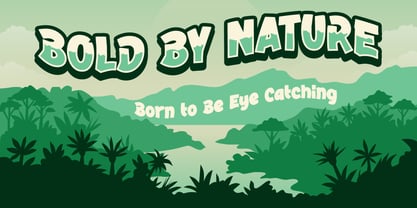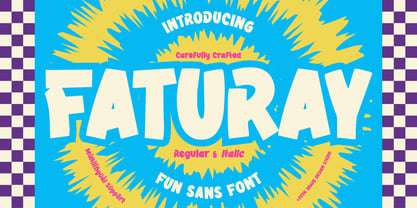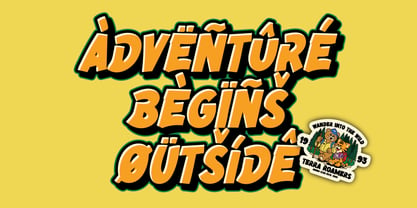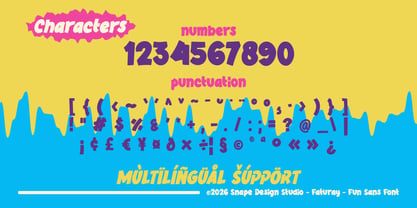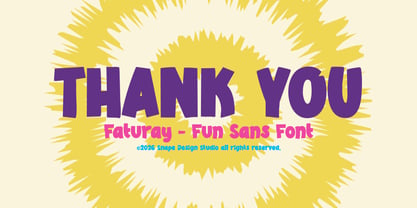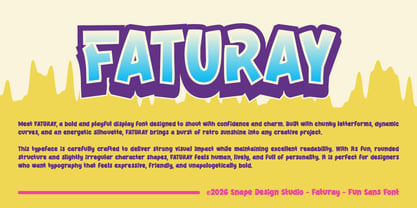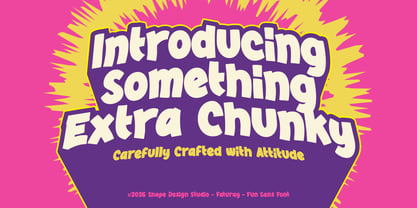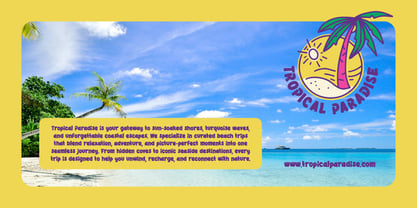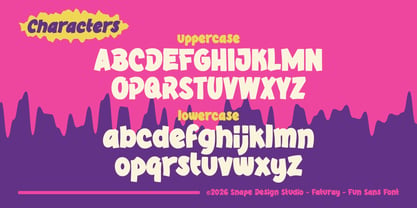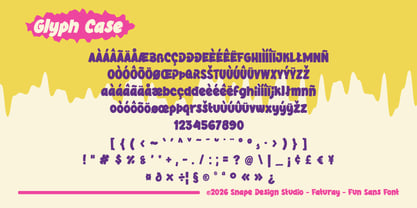
Faturay
by snapedsgn
The Faturay Font Family was designed by Ario Sabrang and published by snapedsgn. Faturay contains 2 styles and family package options. More about this family
Meet FATURAY, a bold and playful display font designed to shout with confidence and charm. Built with chunky letterforms, dynamic curves, and an energetic silhouette, FATURAY brings a burst of retro sunshine into any creative project. This typeface is carefully crafted to deliver strong visual impact while maintaining excellent readability. With its fun, rounded structure and slightly irregular character shapes, FATURAY feels human, lively, and full of personality. It is perfect for designers who want typography that feels expressive, friendly, and unapologetically bold. Whether you are creating branding for a playful business or designing eye-catching social media graphics, FATURAY commands attention instantly. Its bold weight and organic rhythm make it ideal for designs that need to stand out in crowded visual spaces. If you are looking for a bold display font, playful sans serif, fun headline font, or retro-inspired typography with modern versatility, FATURAY is ready to elevate your next creative project. Bring energy. Bring confidence. Bring FATURAY into your design toolkit today. If you have any inquiries or need assistance, please feel free to contact us. We appreciate your support in enhancing your creative projects! Best Regards, Snape Design Studio.
Designers: Ario Sabrang
Foundry: snapedsgn